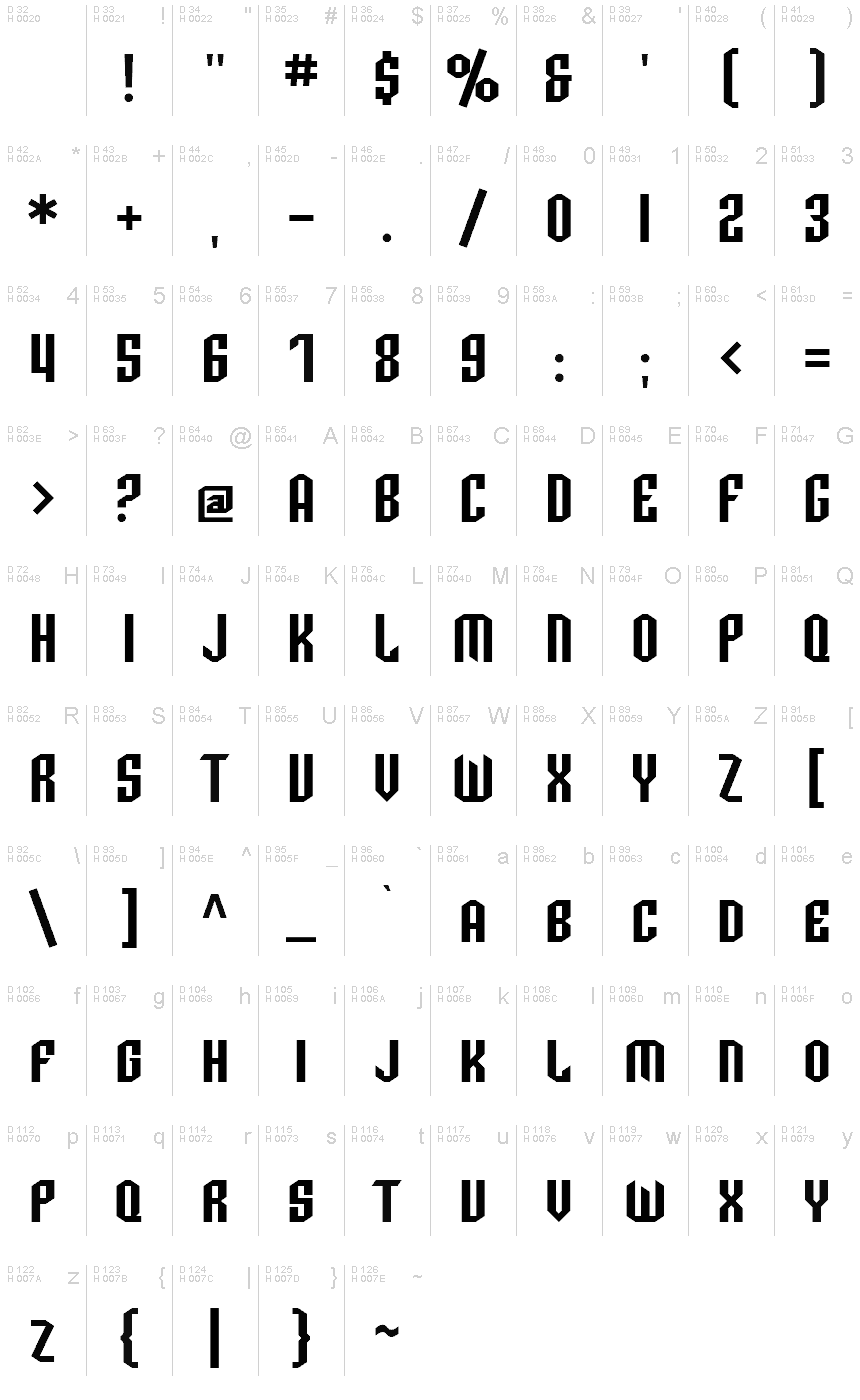
SF Archery Black SC
SF Archery Black SC stands out as a distinctive typeface that fuses the timeless allure of gothic design with a sleek, modern twist. Crafted by ShyFonts Type Foundry, this semi-bold, extra-condensed font boasts an aesthetic that commands attention while remaining highly legible.
Its crisp lines and tight letter spacing make SF Archery Black SC an excellent choice for designers looking to add a touch of sophistication and drama to their projects. The font's modern gothic style imbues text with a sense of elegance and exclusivity, suitable for high-end branding, editorial headlines, or any creative endeavor that demands a font with character and presence.
With its unique blend of the traditional and the contemporary, SF Archery Black SC is poised to elevate your design work with its striking visual appeal and versatile application potential.